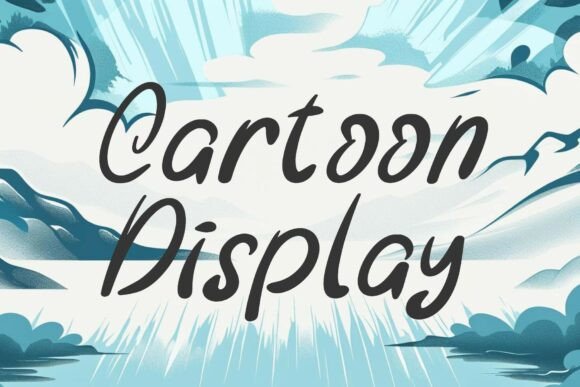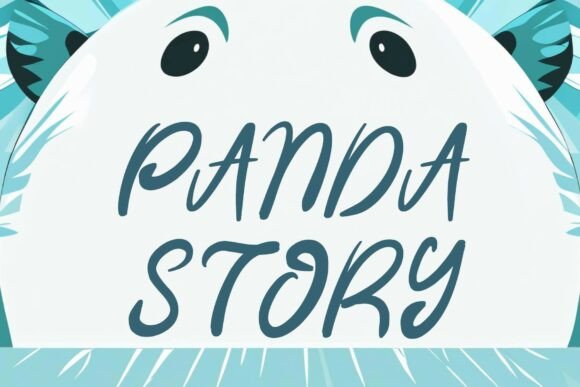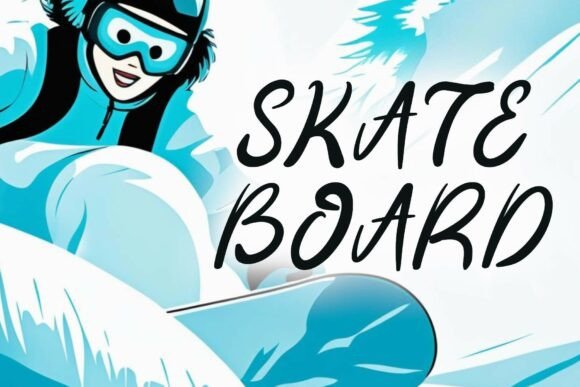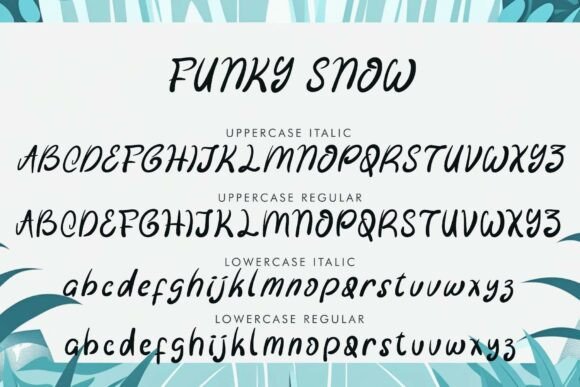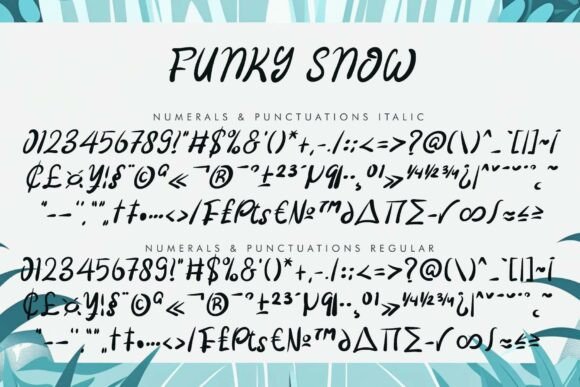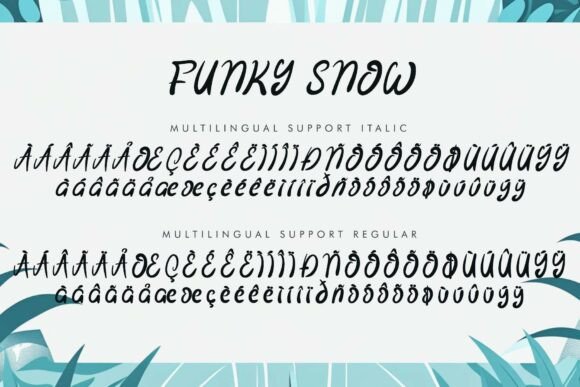
Unleash Your Creativity with Funky Snow Font: A Bold and Playful Display Typeface
Have you ever been in the middle of a design project, and suddenly, you just can’t seem to find the right font? I recall a particularly frustrating experience while working on a vibrant poster for a local music festival. My client wanted something that would “pop” and grab attention, but no matter how hard I searched, I just couldn’t find a font that fit the bill. That was until I stumbled upon the Funky Snow font – a game-changer for any designer looking to add a burst of high-energy, comic-book style to their work.
What Makes Funky Snow Font So Special?
Funky Snow is a bold and cute display typeface that demands attention. Characterized by its heavy, brush-like strokes and dynamic, slanting baseline, this font creates a look that is both playful and powerful. It’s an absolute powerhouse for “pop-art” branding, comic strip lettering, and youth-oriented social media headers. Whether you’re designing a logo for a trendy streetwear brand or a title for a playful animation project, Funky Snow provides the perfect blend of fun and sophistication.
My Honest Review of Funky Snow Font
- ✨ High-impact visibility: The thick weight of this font makes it perfect for physical products like stickers and embroidered patches, where thin lines often fail.
- ✅ Versatility: From YouTube thumbnails to t-shirt graphics, and vibrant poster headlines, Funky Snow works exceptionally well across various mediums.
- 🎉 Playful yet professional: This font strikes the perfect balance between fun and sophistication, making it ideal for a wide range of design projects.
- 🤔 Legibility at small sizes: Due to its bold nature and brush-like strokes, Funky Snow can become a bit tricky to read at very small sizes. It’s best used for headlines or titles rather than body text.
- ⚠️ Overuse: While Funky Snow is undeniably eye-catching, using it excessively can lead to visual overload. Balance is key when incorporating this font into your designs.
The Backstory Behind Funky Snow Font
Funky Snow was inspired by the vibrant world of pop art and comic books. Its creator aimed to craft a font that would capture the dynamic energy and playfulness of these art forms. The result is a typeface that is both bold and cute, perfect for designers looking to add a touch of fun and personality to their work.
| What type of projects is Funky Snow best suited for? | Funky Snow is ideal for “pop-art” branding, comic strip lettering, youth-oriented social media headers, YouTube thumbnails, t-shirt graphics, and vibrant poster headlines. |
| Can I use Funky Snow for physical products? | Absolutely! The thick weight of this font makes it perfect for physical products like stickers and embroidered patches. |
| Is Funky Snow difficult to read at small sizes? | Due to its bold nature and brush-like strokes, Funky Snow can become a bit tricky to read at very small sizes. It’s best used for headlines or titles rather than body text. |
With Funky Snow font, you can add a burst of energy and playfulness to your designs. Whether you’re a seasoned designer or a creative hobbyist, this bold and cute display typeface is sure to become a favorite in your toolkit.